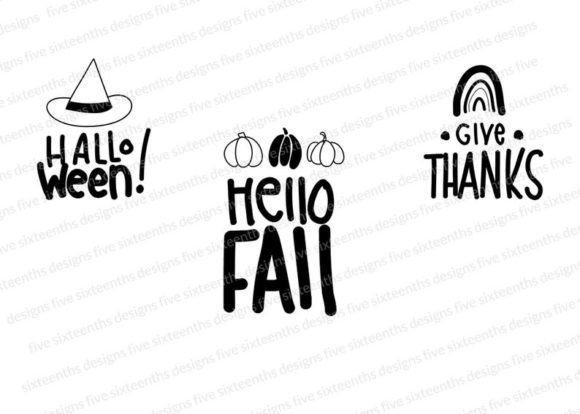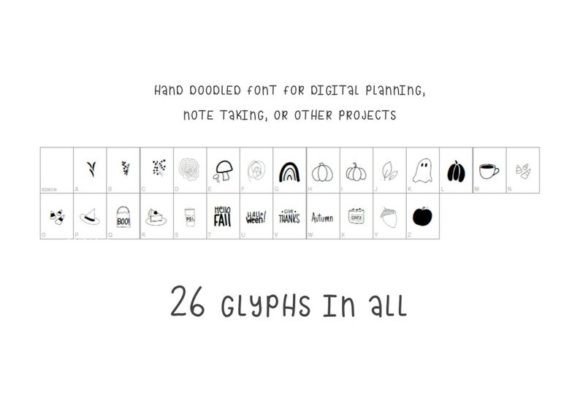
About Autumn Dingbats Font
Introducing Autumn Dingbats, a delightful hand-doodled font designed specifically for digital planning and beyond. This charming font captures the essence of autumn with its whimsical and playful doodle-style illustrations. Whether you’re using it on your computer, laptop, tablet, or phone, Autumn Dingbats will add a fun and doodled look to your designs.
Autumn Dingbats is perfect for digital planning enthusiasts who want to add a touch of creativity and personalization to their digital planners. With this font, you can easily incorporate adorable autumn-themed doodles into your planning layouts. From cute pumpkins, leaves, acorns, and seasonal elements to cozy symbols like hot beverages and sweaters, Autumn Dingbats offers a wide variety of doodles that embody the spirit of the fall season.
Not limited to digital planning, Autumn Dingbats can also be used for other creative projects. The hand-doodled style of this font makes it ideal for creating printed stickers for physical planners, scrapbooking, card-making, and more. You can add a whimsical touch to your physical planner pages by printing and cutting out the doodles from Autumn Dingbats, making your planner uniquely yours.
Let Autumn Dingbats bring the cozy and playful vibes of the autumn season to your digital planning and creative endeavors. Embrace the hand-doodled look and have fun decorating your digital planner with cute and whimsical autumn-themed doodles. The versatility of Autumn Dingbats makes it a delightful font to add a touch of creativity to all your autumn-related projects.
So, get ready to embrace the beauty of fall with Autumn Dingbats. Whether you’re a digital planner, a scrapbooker, or simply someone who loves the autumn season, this font will add a fun and doodled flair to your creations. Let your imagination run wild and enjoy the endless possibilities of this charming dingbats font.